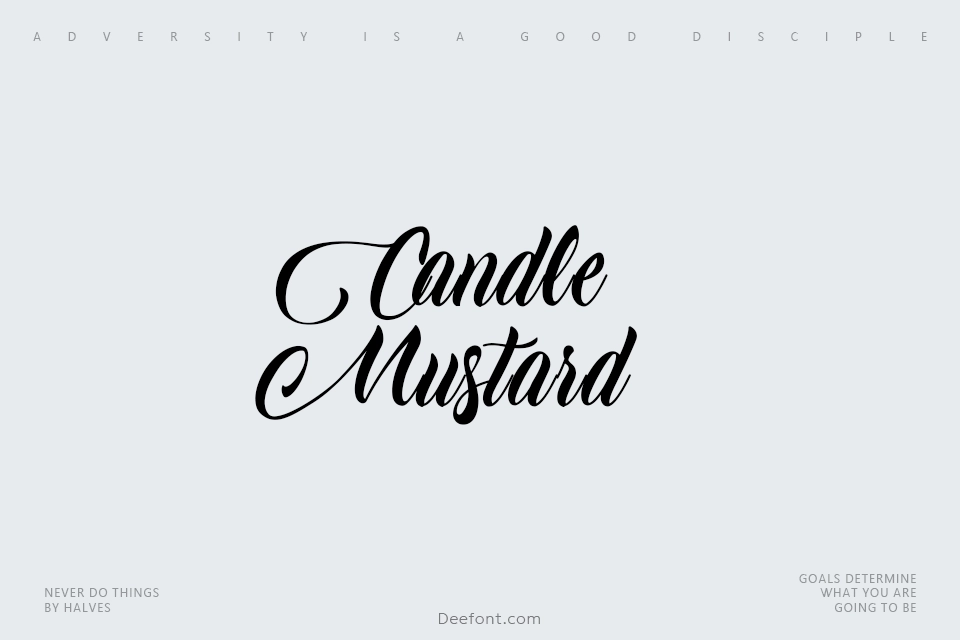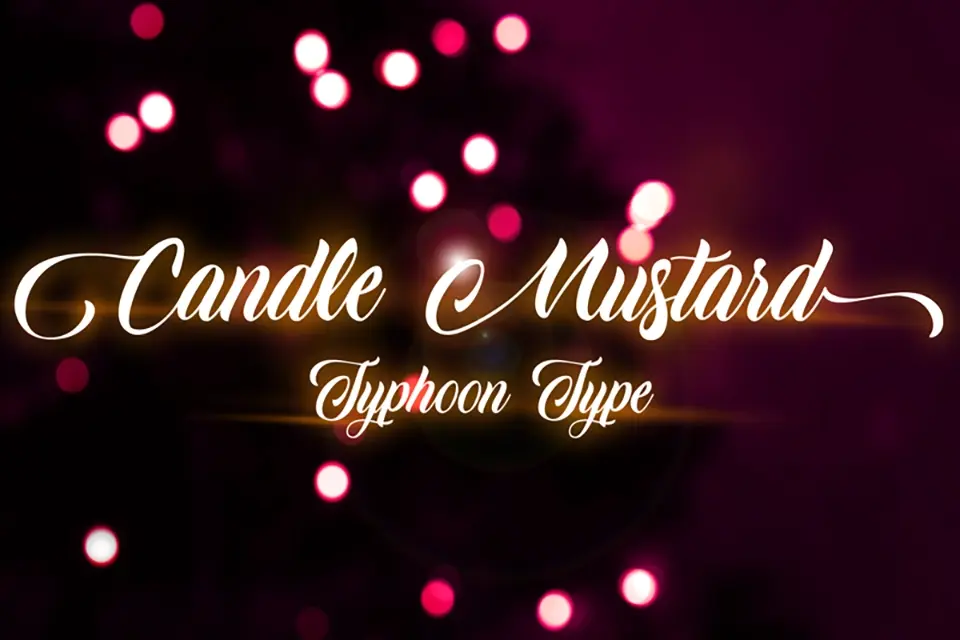
Candle Mustard Font
Candle Mustard is an elegant calligraphy and script typeface designed for standout display purposes. This beautiful font combines smooth, flowing letterforms ideal for creative typography in both print and digital designs. Perfect for projects requiring sophisticated, handwritten aesthetic qualities with professional appeal.